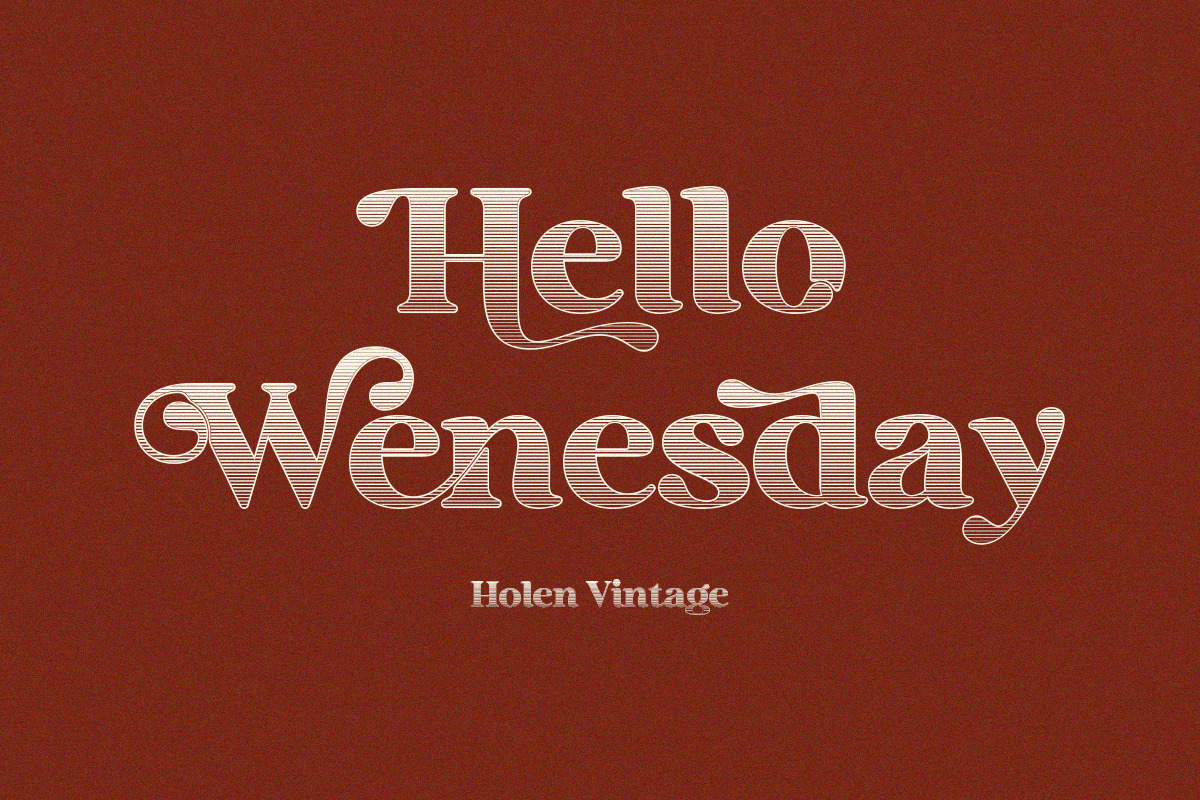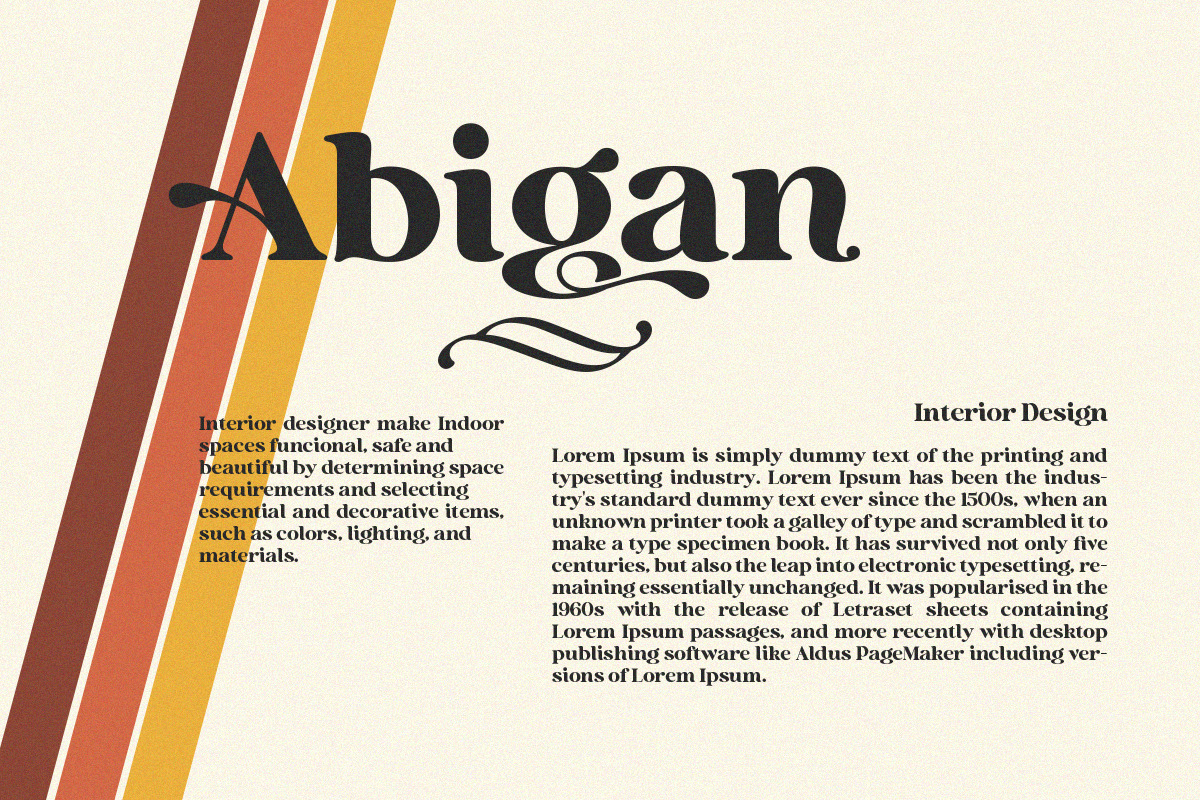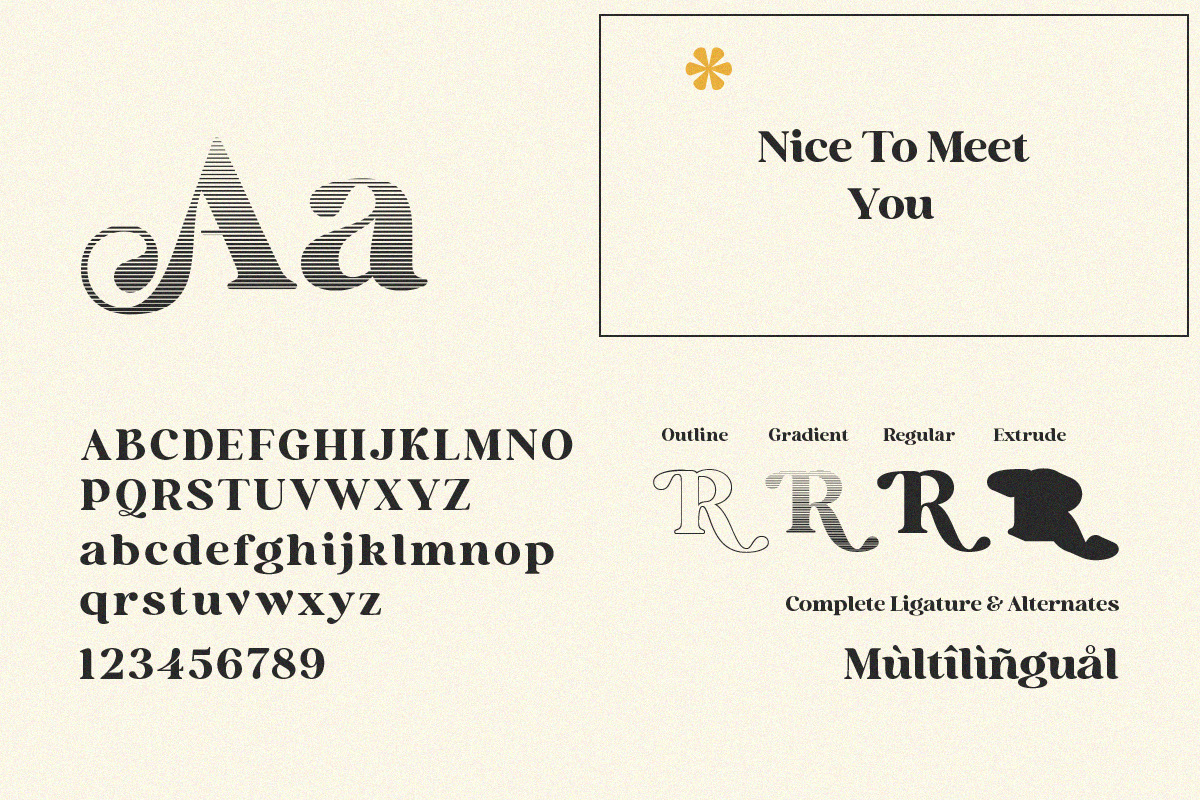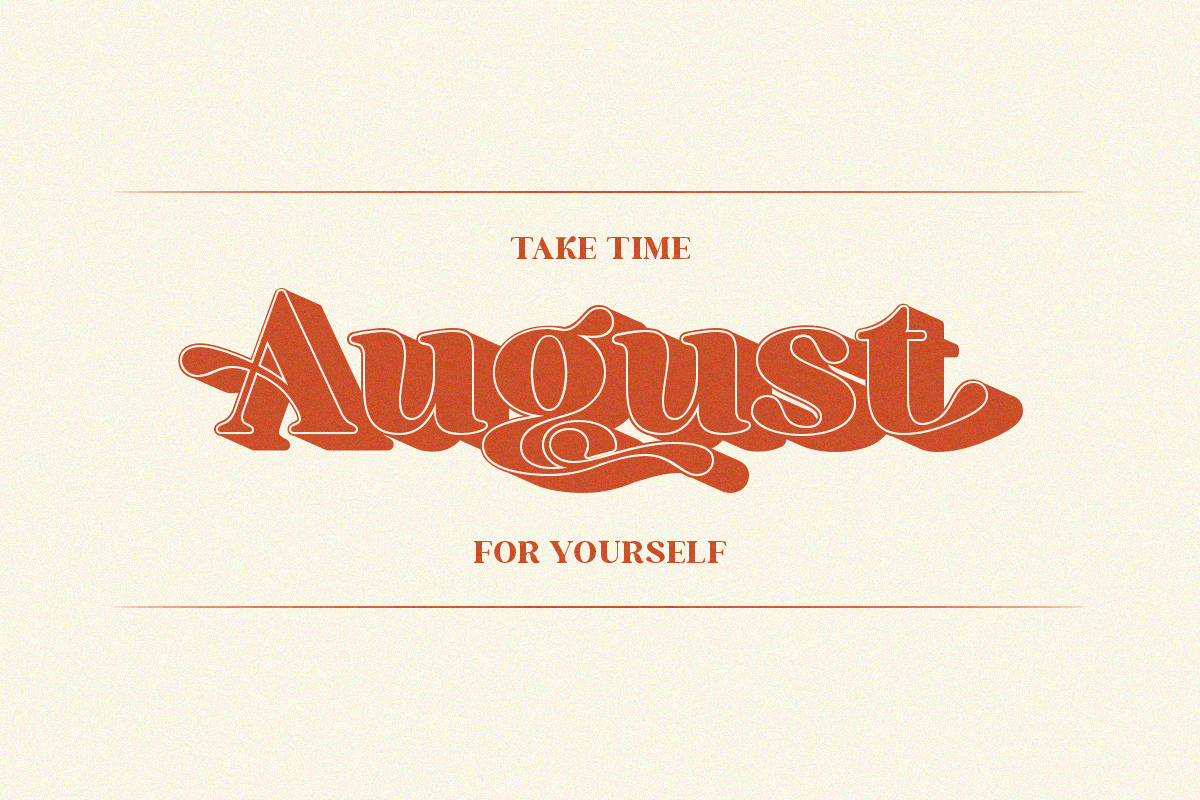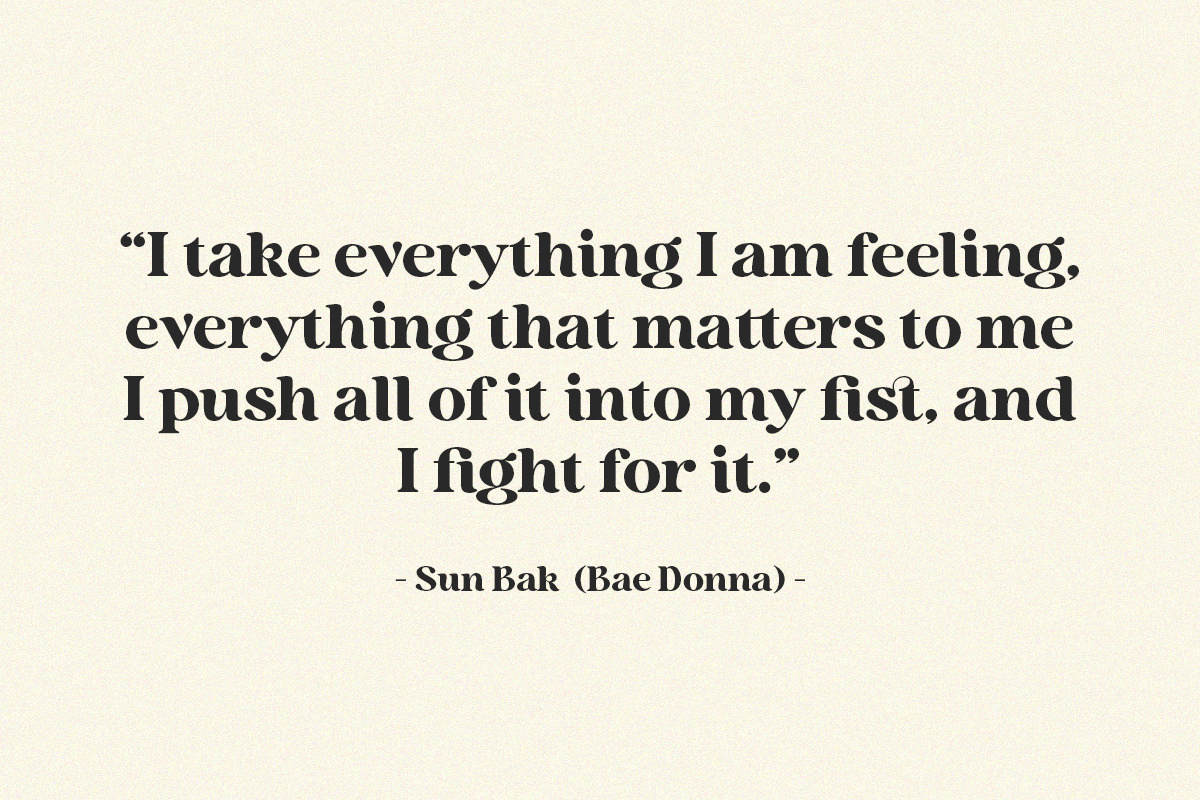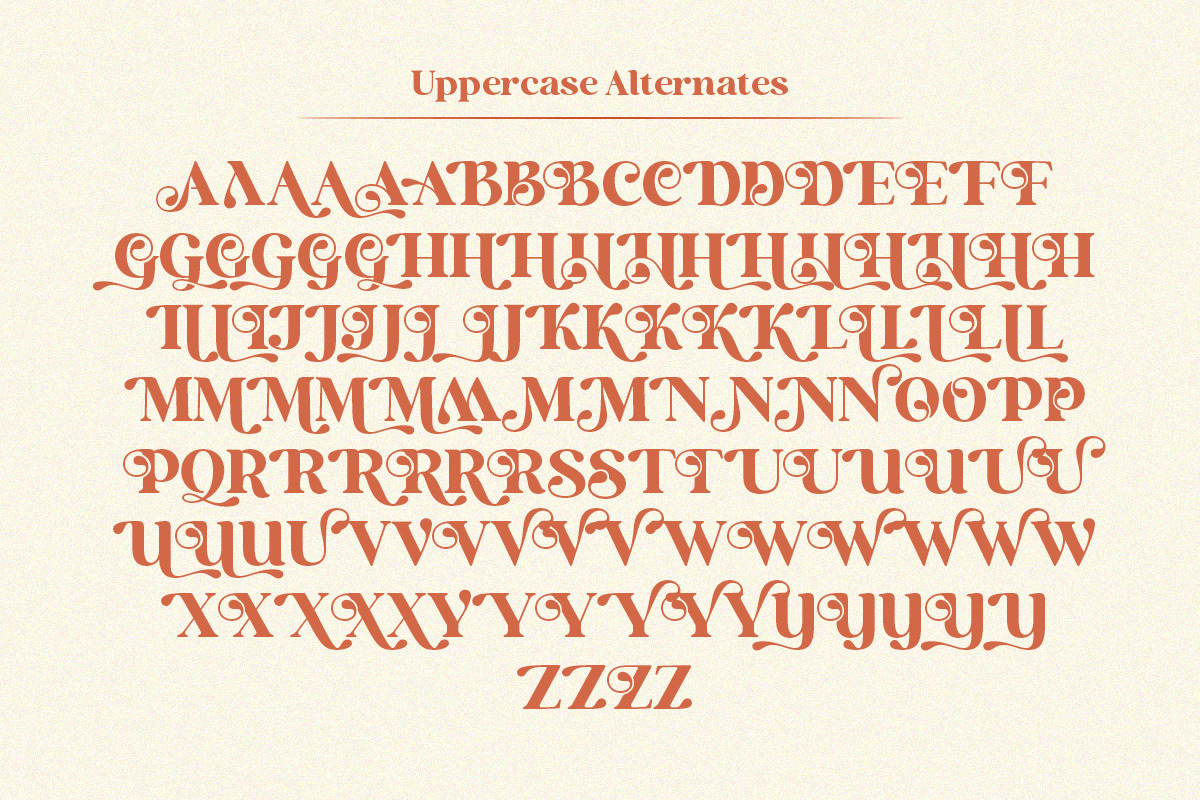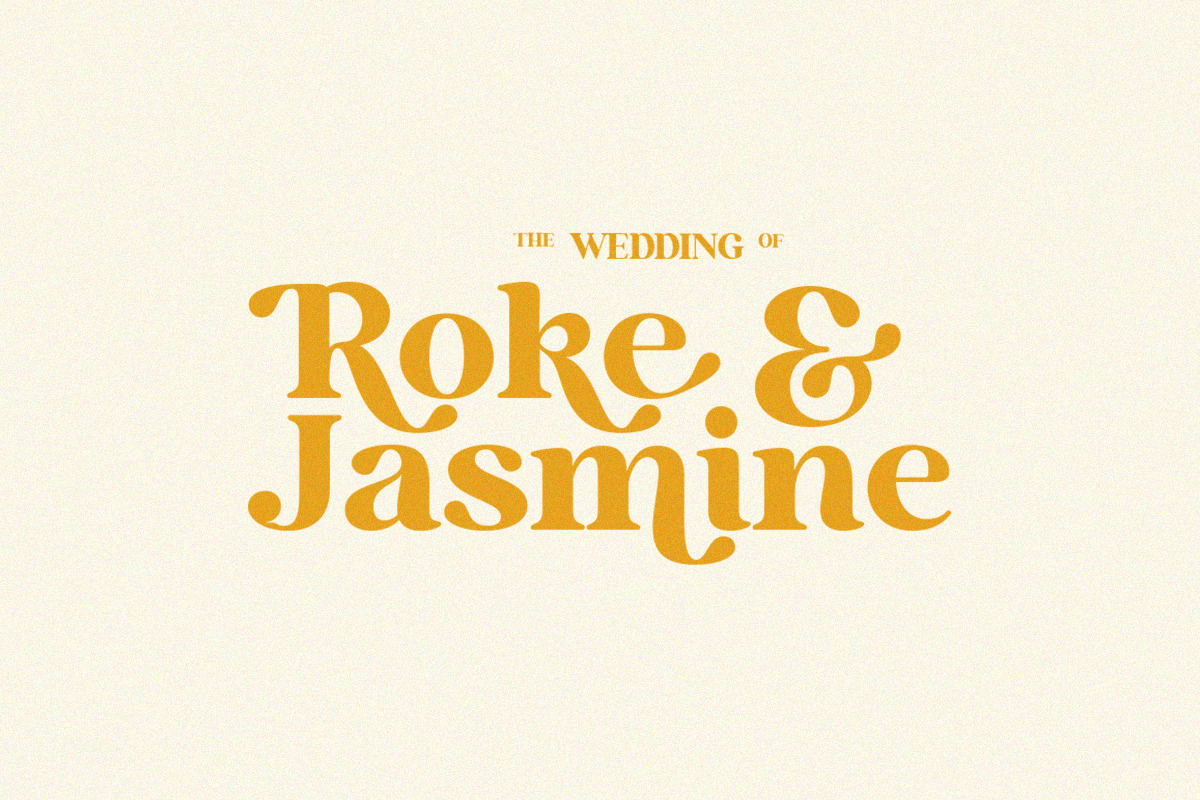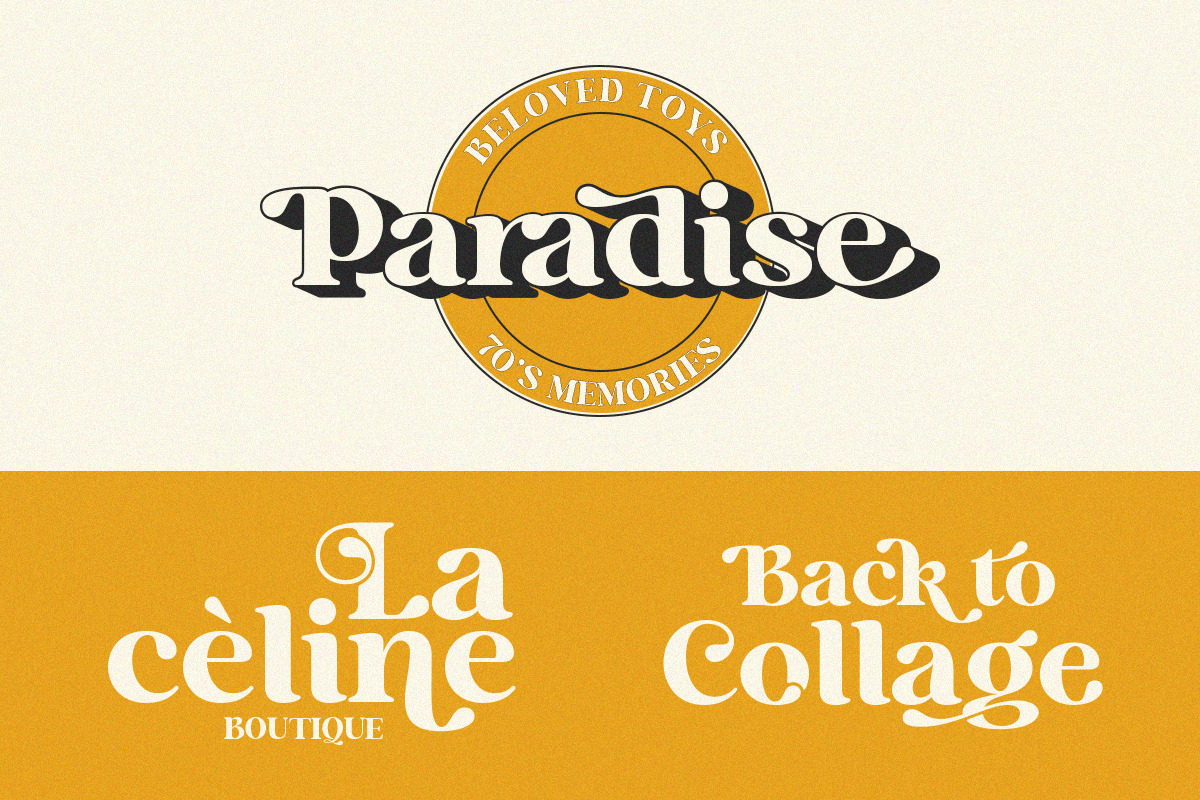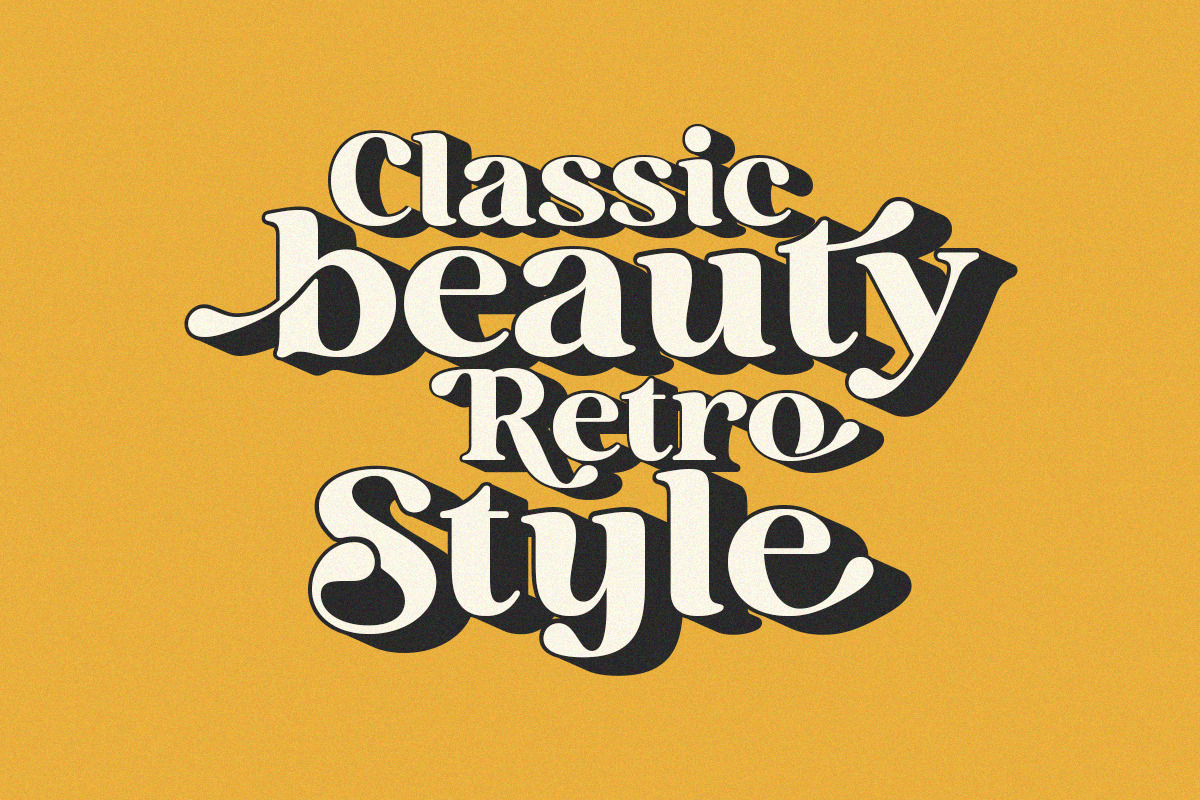
Holen Vintage
Holen Vintage is a stylish blend of classic serif fonts with modern serifs with bold curves giving it a traditional groovy vibe, luxury and versatility. Holen Vintage is made with a high level of legibility and is perfect for nostalgic moodboard projects, vintage logos, wedding designs, social media posts, advertisements, product packaging, product designs, labels, photography, watermarks, invitations, stationery and any project.
- Stylistic Alternates & Ligatures